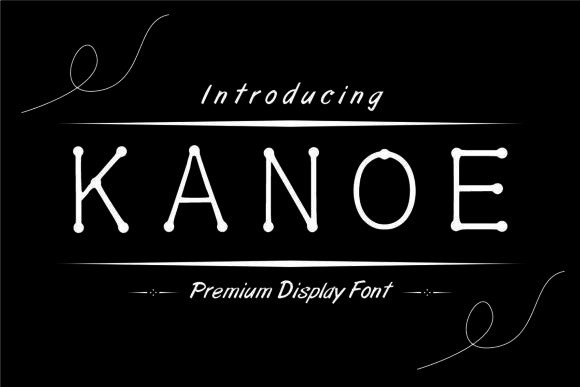
Kanoe Display Font for Handmade Labels & Invitations
As a maker who designs candle labels, wedding stationery, and printable wall art for Etsy, I’m always hunting for display fonts that do more than look pretty—they need to work. Kanoe is one of those rare typefaces that balances bold personality with real-world practicality. It’s not overly ornate, but it’s never plain. It’s fun without being childish, bold without sacrificing legibility—even at small sizes on product tags or vinyl stickers.
Kanoe has this joyful, slightly bouncy rhythm—like handwriting with confidence. The letterforms are rounded but structured, with friendly curves and clean terminals. There’s no sharp aggression or fragile delicacy here. Instead, you get warmth, clarity, and presence. That makes it ideal for physical products where customers see your brand before they read your story: a hand-poured soy candle with a Kanoe-labeled kraft tag, a rustic wedding welcome board with Kanoe headlines, or a set of printable planner pages where the month title pops just right.
I’ve used Kanoe across dozens of handmade projects—and each time, it holds up in production. On my Cricut Maker, it cuts cleanly at 0.25" height for mini gift tags. On matte sticker paper, it prints crisply at 8pt for ingredient labels. And when scaled up for a 24"x36" farmhouse-style sign, it retains its charm without pixelation or awkward spacing. That versatility matters. You don’t want to juggle three different fonts just to cover small labels, medium invitations, and large wall art. With Kanoe, one well-chosen size and weight often does the job across multiple formats.
For seasonal crafters, Kanoe shines during holidays. Its playful energy suits Halloween treat bags, Easter egg labels, and Christmas ornament tags—but it never feels dated or kitschy. I paired it with a subtle serif for a client’s holiday cookie box packaging, and the contrast gave the design sophistication without losing approachability. For Valentine’s Day, I used Kanoe for “Love Baked Fresh Daily” on bakery toppers—bold enough to stand out on pastel backgrounds, soft enough to feel heartfelt.
Readability is where many display fonts falter—but Kanoe stays clear even in tight spaces. The uppercase “A,” “R,” and “G” have open counters; lowercase “e” and “a” are distinct and unambiguous. That means fewer customer questions about spelling, fewer mis-cut vinyl letters, and fewer reprints due to blurry mockup previews. When I designed a set of SVG files for Silhouette users, I tested Kanoe at 0.18" height across five different machines—and every version cut cleanly. No overlapping letters. No collapsed stems.
Kanoe works beautifully as a standalone headline font, especially for short phrases: shop names, quote cards, product titles, or event dates. It’s not built for long paragraphs—that’s not its role—but it excels where attention needs to land fast: “Handmade in Oregon,” “Est. 2019,” “Just Add Joy.” For longer text blocks (like invitation wording or care instructions), I pair Kanoe with a clean sans serif like Montserrat or a gentle serif like Cormorant Garamond. The contrast gives hierarchy without competition. If you’re layering Kanoe over photos or textured backgrounds, try using it in solid black or deep navy—it holds contrast better than light grays or pastels.
Font pairing isn’t just aesthetic—it’s functional. A script font might add elegance to a wedding suite, but Kanoe brings the anchor: strong, readable, and unmistakably yours. Try Kanoe for the couple’s names, then a delicate script for “&” and the date. Or use it for “Farmhouse Kitchen” on a mug, then a simple sans for the recipe subtitle. These combinations build brand consistency across your product line—not just matching colors, but matching tone and trust.
What sets Kanoe apart isn’t just how it looks—it’s how it performs across your workflow. From sketching an idea in a notebook to uploading a final SVG to your shop, it moves with you. It reads well on screen and in print. It scales without breaking. It feels handmade, even when digitized. And most importantly, it helps your customers *feel* something before they even touch your product: joy, warmth, authenticity.
If you're refreshing your font library for the new season—or launching your first Etsy shop—Kanoe is worth prioritizing. Not because it’s trendy, but because it’s dependable. Not because it’s flashy, but because it’s finished. It’s the kind of display font that quietly elevates everything it touches: a sticker sheet, a wedding suite, a boutique soap label, a printable quote for a nursery wall. It doesn’t shout. But it makes sure you’re heard.